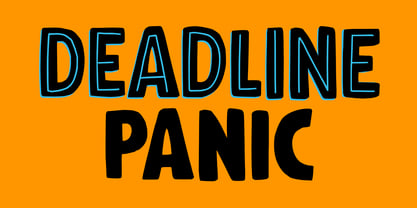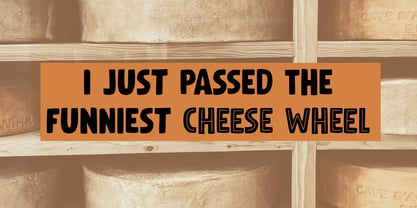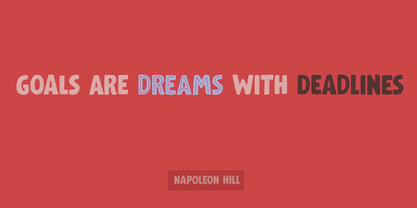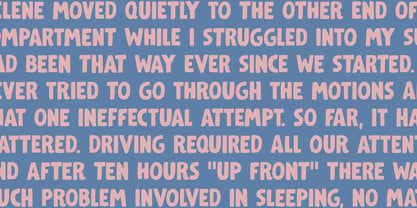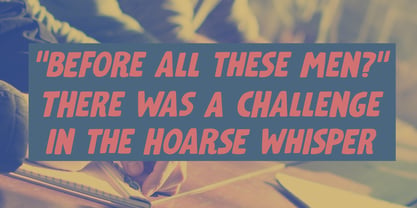
Deadline Panic
by Hanoded
The Deadline Panic Font Family was designed by David Kerkhoff and published by Hanoded. Deadline Panic contains 4 styles and family package options. More about this family
Deadline Panic is a handmade font family. It features bold lines, rough edges and unmistakable character. Its unique, unpredictable shapes make it ideal for eye-catching posters, stand out product packaging, and distinctive book covers that need personality and attitude. When your design needs to stand out fast, Deadline Panic delivers. Of course, Deadline Panic comes with a full set of accented glyphs.